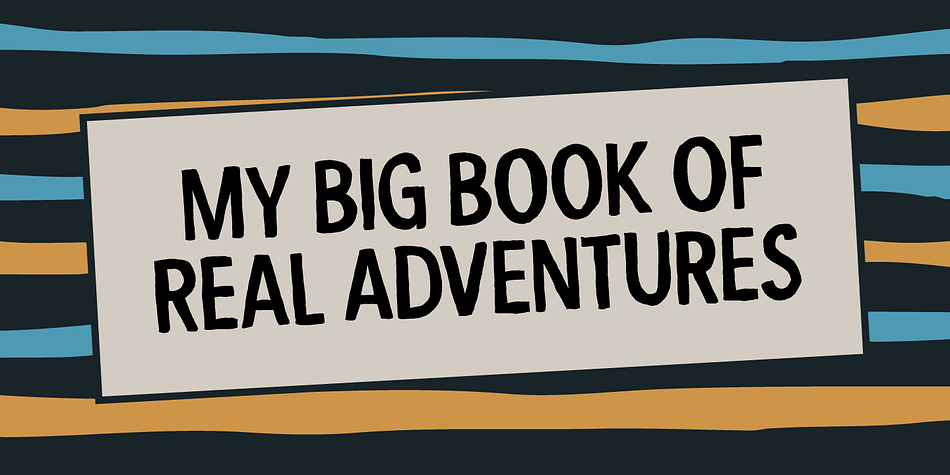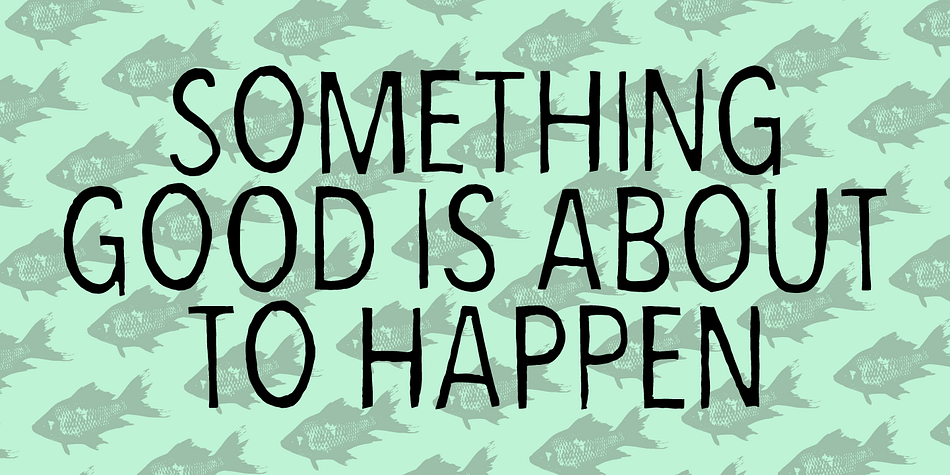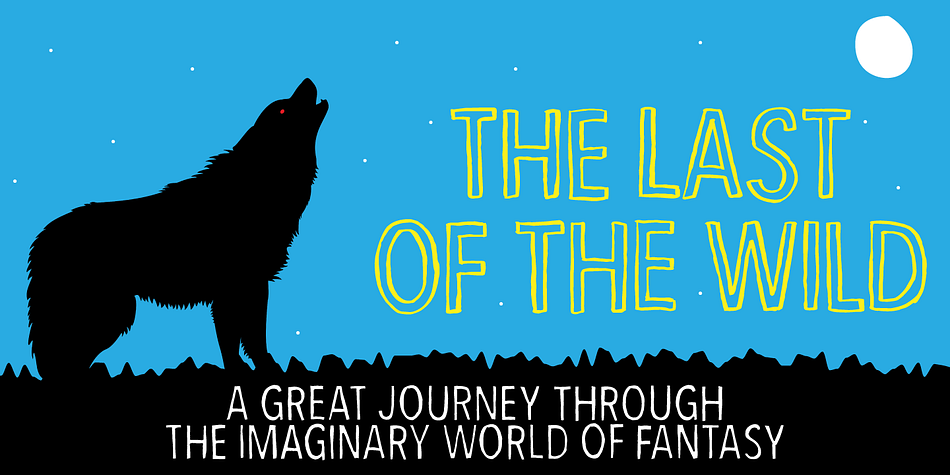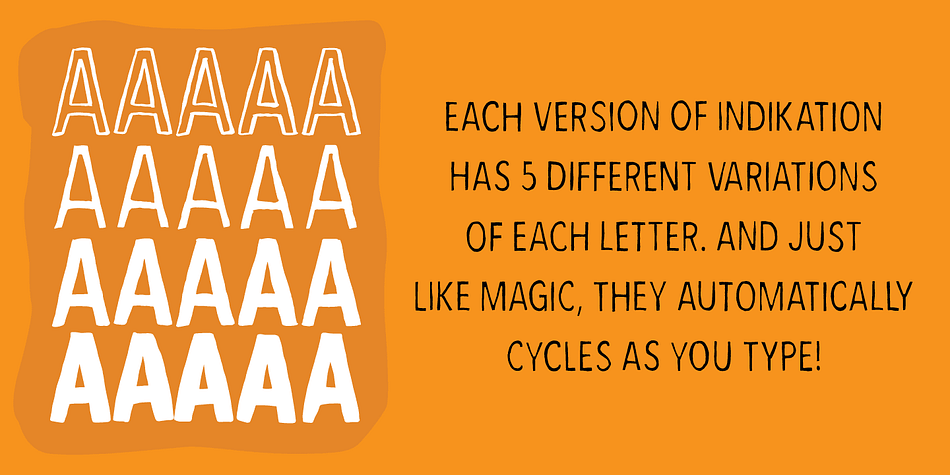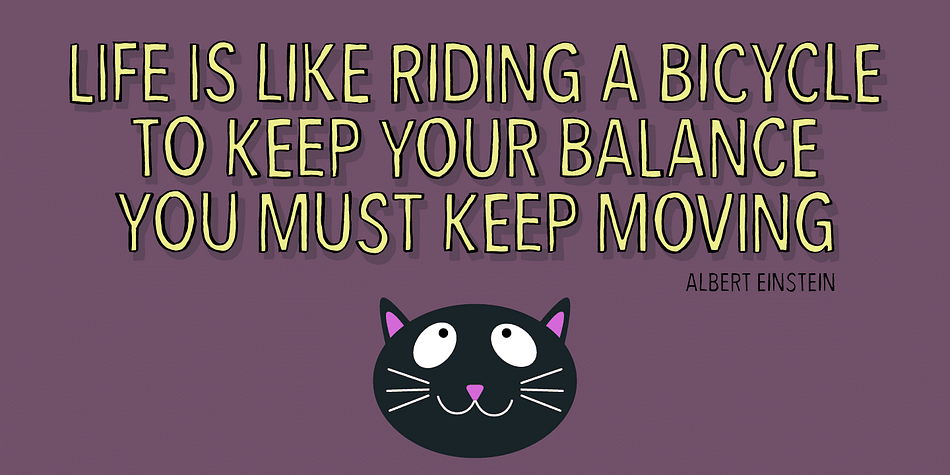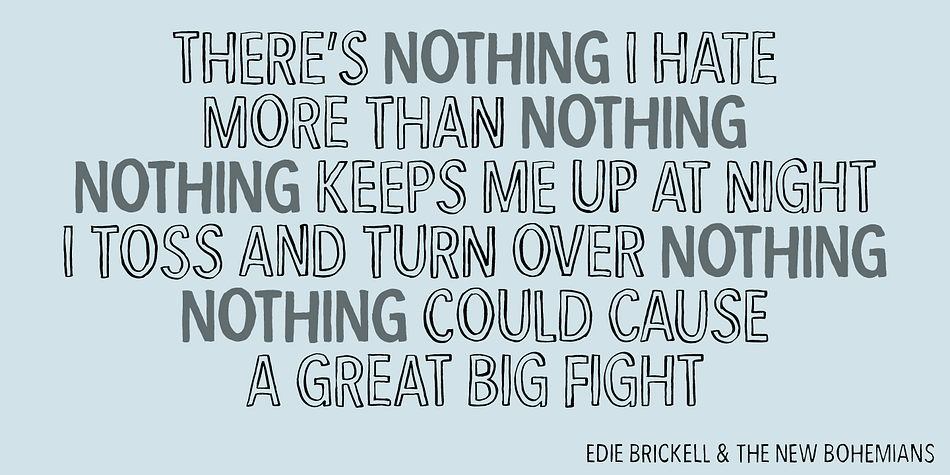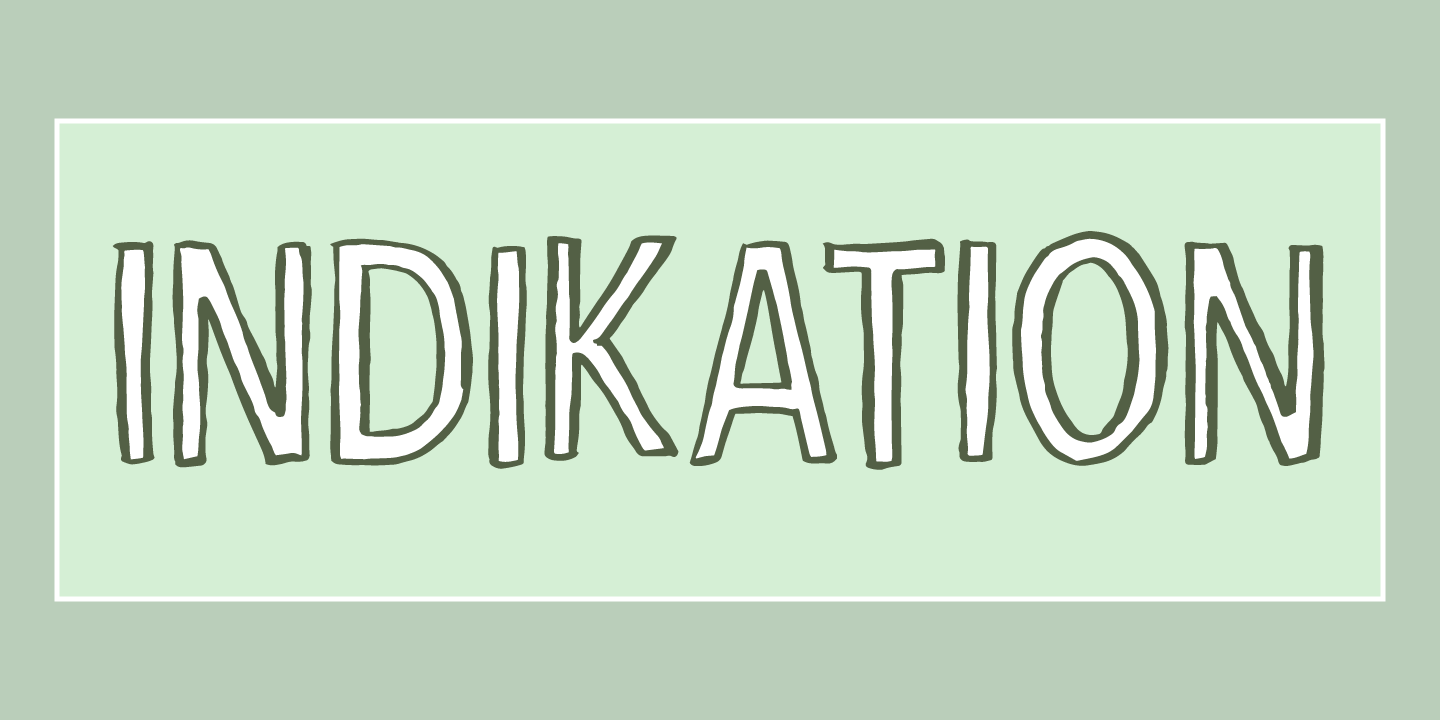
Designed by Jakob Fischer, Indikation is a hand display font family. This typeface has four styles and was published by Pizzadude.dk.
My handmade brush font with 5 different versions of each letter, and loads of international characters. Great for headlines, invitations, flyers and posters. The 4 versions mix easily, and they are great to use alone, or as layered text.